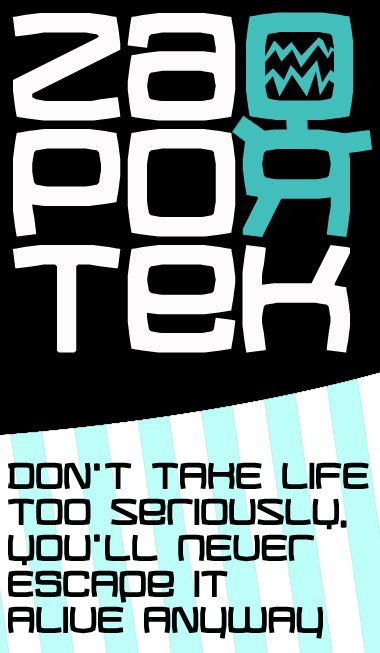
Baeiouoaiueuoiueoitiful. 13.6/10.
This is cool. I'm surprised the subtle differences between the u and the v are enough to distinguish them. I like how the capital Q and Y harmonize. And the & is really cool too. Maybe the lower case g should have a descender; not as the q, but on the base of the capital G. In any case this gets a 10/10, and goes in my faves.
Oh my GOSH! Kix, you are a GENIUS!! "Great work" might be an understatement.
15,000,000,000,000,000,000,000/10
The mastery is in the subtlety of the bulge. Your time away has rejuvenated your creative juices.
Great font, kix! Congrats.
Fantastic.
breathtaking :O
Oh my gosh! Proof this!